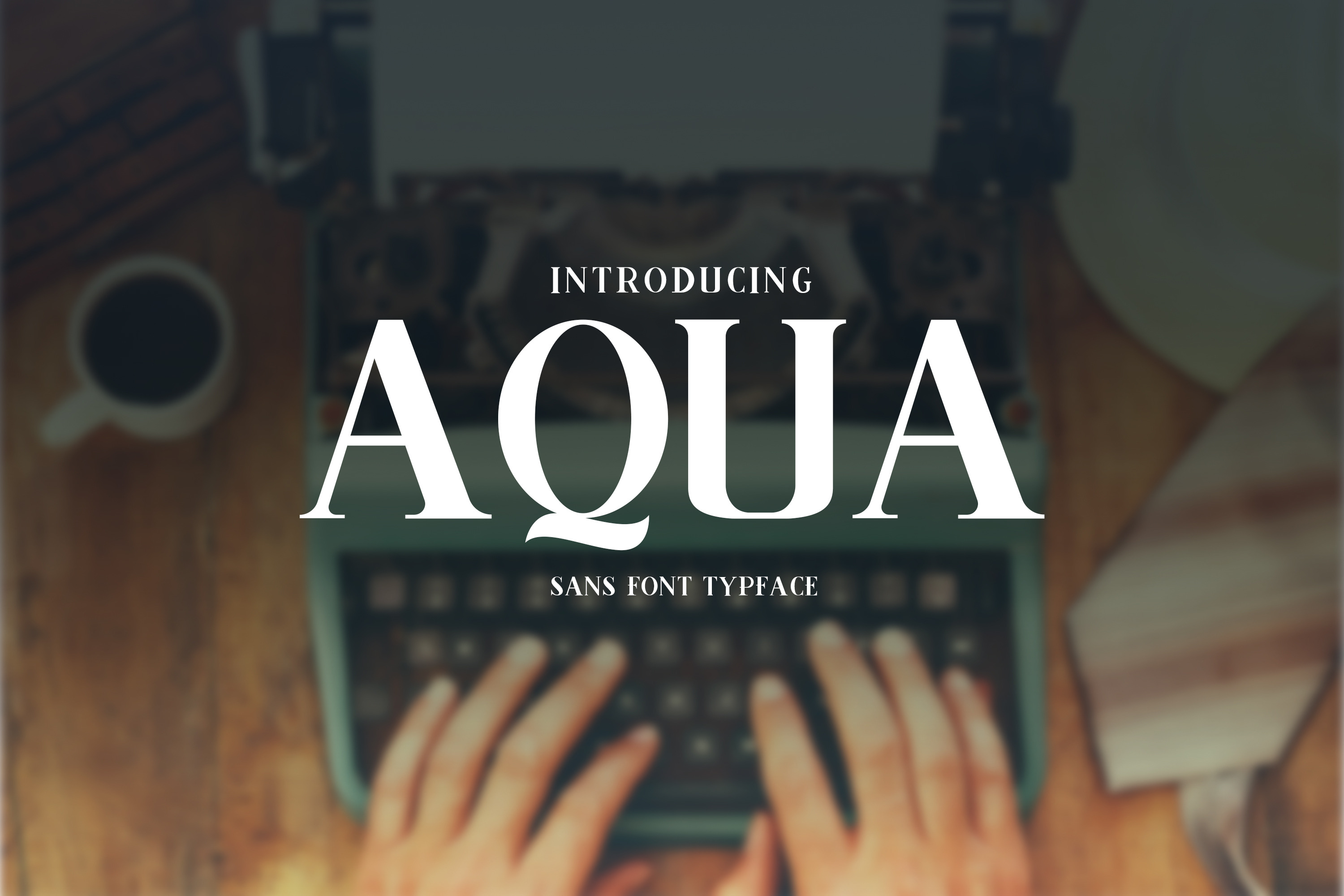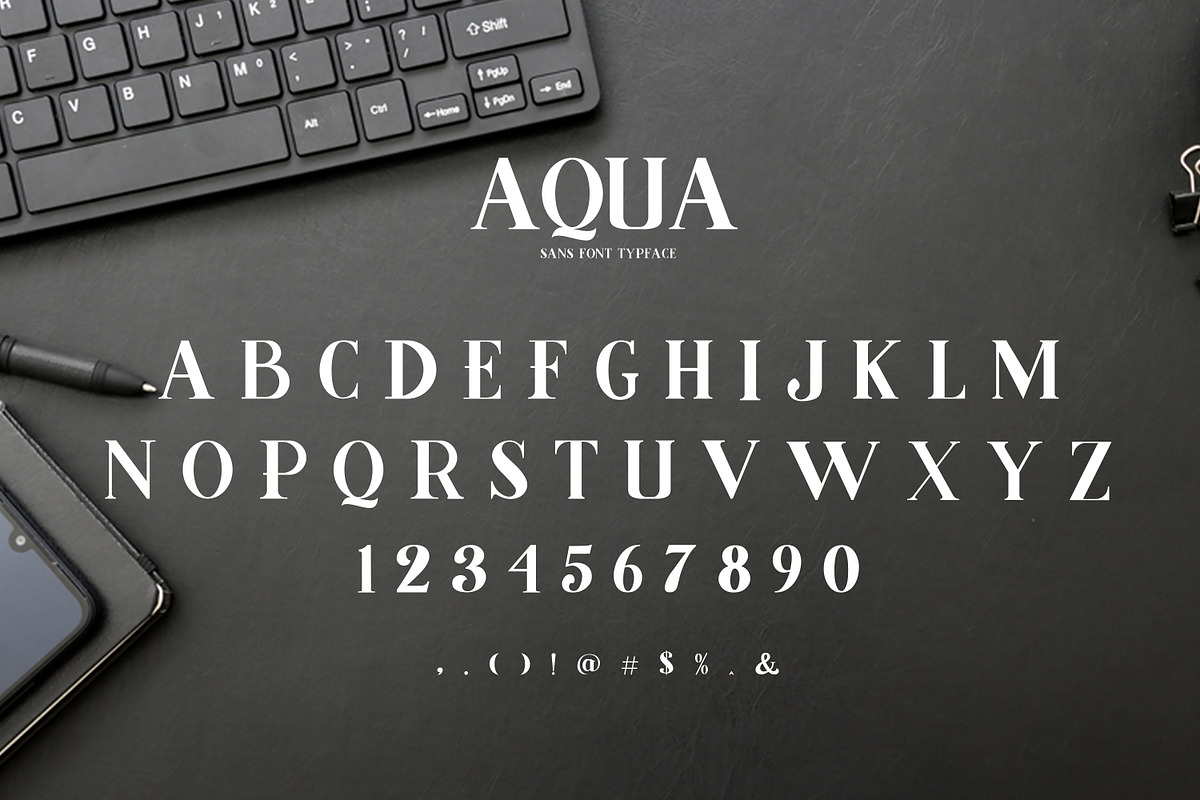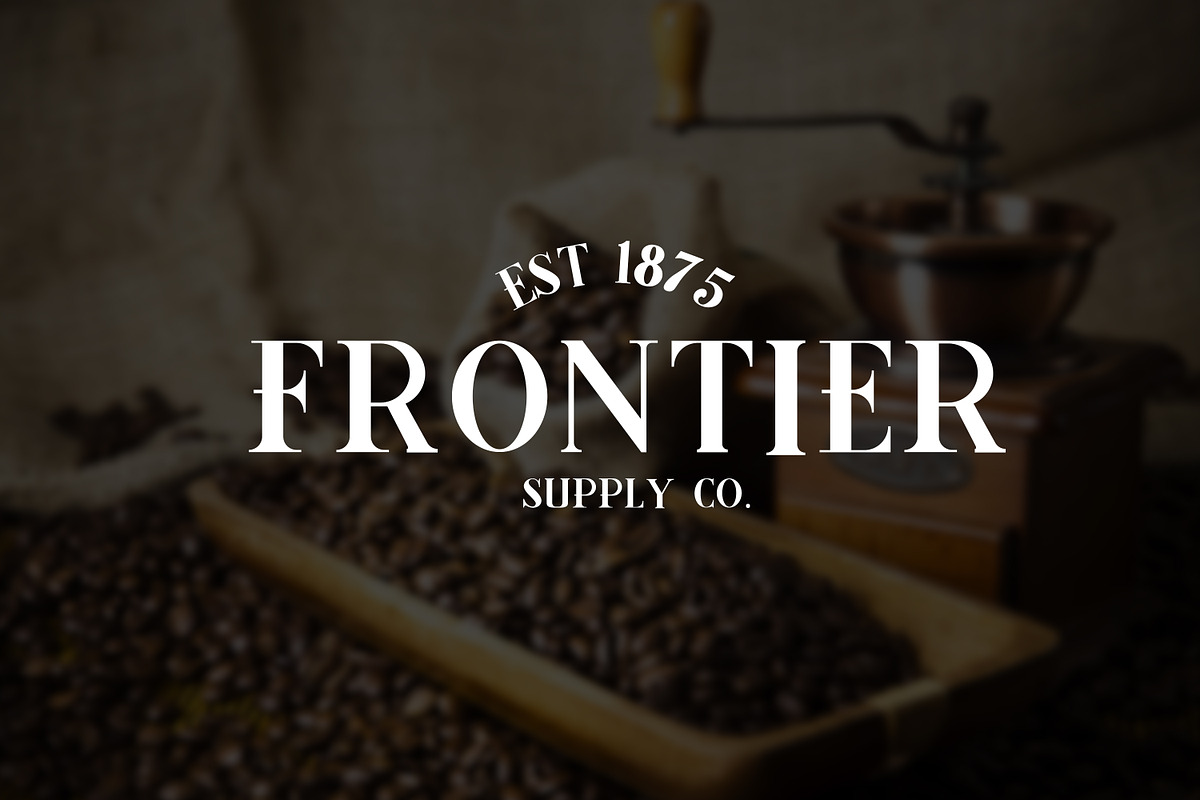
Aqua San Serif Font
Aqua is Modern San Serif Font
Aqua font is perfect for your up coming projects designs. Such as logo branding, editorial design, stationery design, sport design, blog design, modern advertising design, card invitation, art quote, home decor, book/cover title, special events and any more.